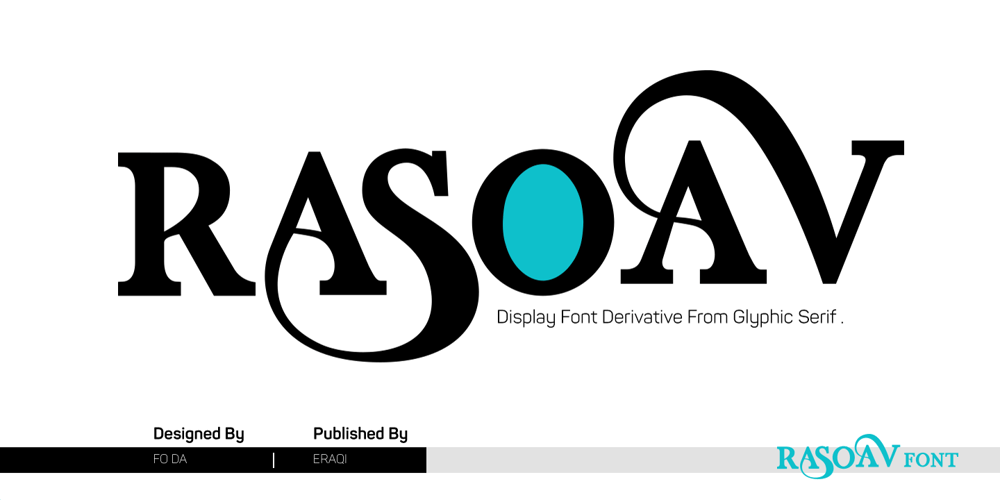
Rasoav Font Family was designed by Ahmed Eraqi, Nohamad Foda and published by Fo Da. Rasoav contains 1 styles and family package options. Rasoav is a Display “ALL CAPs” font, derivative from Glyphic Serif consisting of a single weight. It supports English, Spanish, German, French, Extended Latin and more … Main Features: • Perfect for headlines • 265 glyphs • 78 ligatures • Support many languages